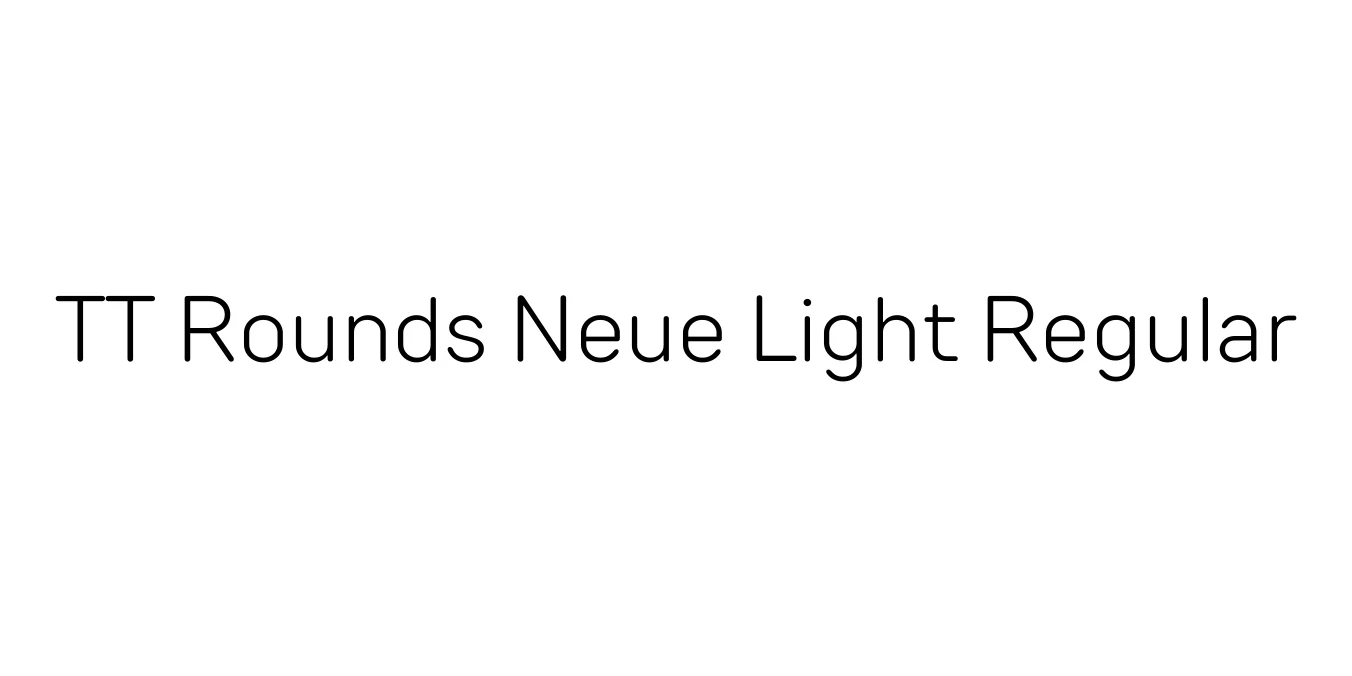
TT Rounds Neue Light Regular
Designed by TypeType Team
| Category | Rounded Sans-Serif |
| Designer | TypeType Team |
| Similar Fonts | VAG Rounded, Gotham Rounded, Proxima Soft, Helvetica Rounded |
TT Rounds Neue Light Regular is a modern evolution of the original TT Rounds family, meticulously redesigned by the TypeType team to meet contemporary digital and print standards. This font maintains its signature soft and friendly appearance while introducing technical improvements such as refined proportions and enhanced legibility across all weights.
The Light Regular weight offers a delicate yet distinct presence, making it ideal for interfaces that require a balance between minimalism and warmth. Its smooth, rounded terminals evoke a sense of approachability, ensuring that brand identities and user experiences feel welcoming and modern.
TT Rounds Neue Light Regular Best Uses
Perfect for creating approachable and friendly brand identities.
Excellent for mobile applications and websites looking for a clean, soft aesthetic.
Great for consumer goods and children's products due to its rounded, safe feel.
Works well for pull quotes and headers in modern magazine layouts.